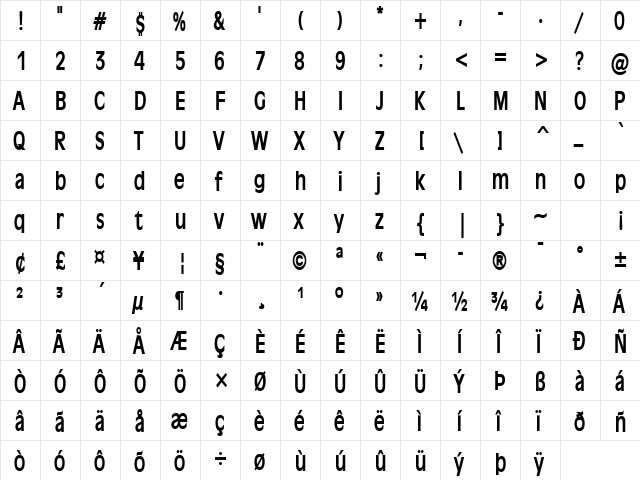
Antiqua 101 Thin Bold
Design Context for Antiqua 101 Thin Typeface
Antiqua 101 Thin is a composed and adaptable typeface that performs quietly and consistently across a wide range of design contexts. The heavy weight commands attention and anchors typographic hierarchies.